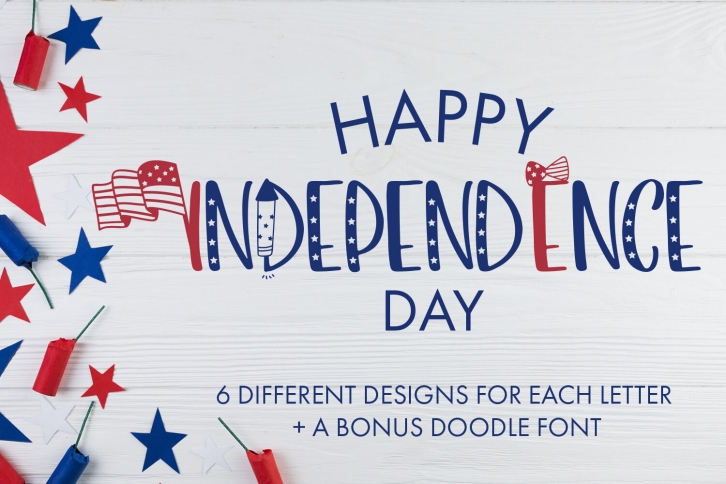
Happy Independence Day - 6 Designs With Bonus Doodles
Happy Independence Day is a fun font that comes with 6 different designs per letter. This font is perfect to use if you wish to spark up your designs during Independence Day in USA aka 4th July. It is perfect to use for your DIY project if you are going to have parties or if you just wish to create personalised items for this day specifically.
You can access one of the designs using lower cases and one of the designs using upper cases. The remaining 4 designs are available as stylistic alternates for upper cases. There is also an additional font included that includes over 50 doodles which can be accessed via A-Z and a-z. This font can be used for anything such as T-Shirt designs, phone cases, greeting cards, invitations, mugs and so much more! Be creative but most importantly have fun!